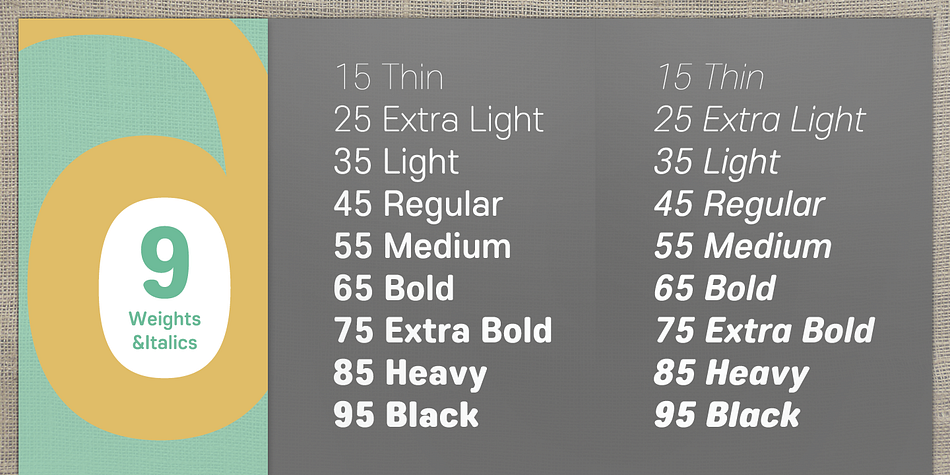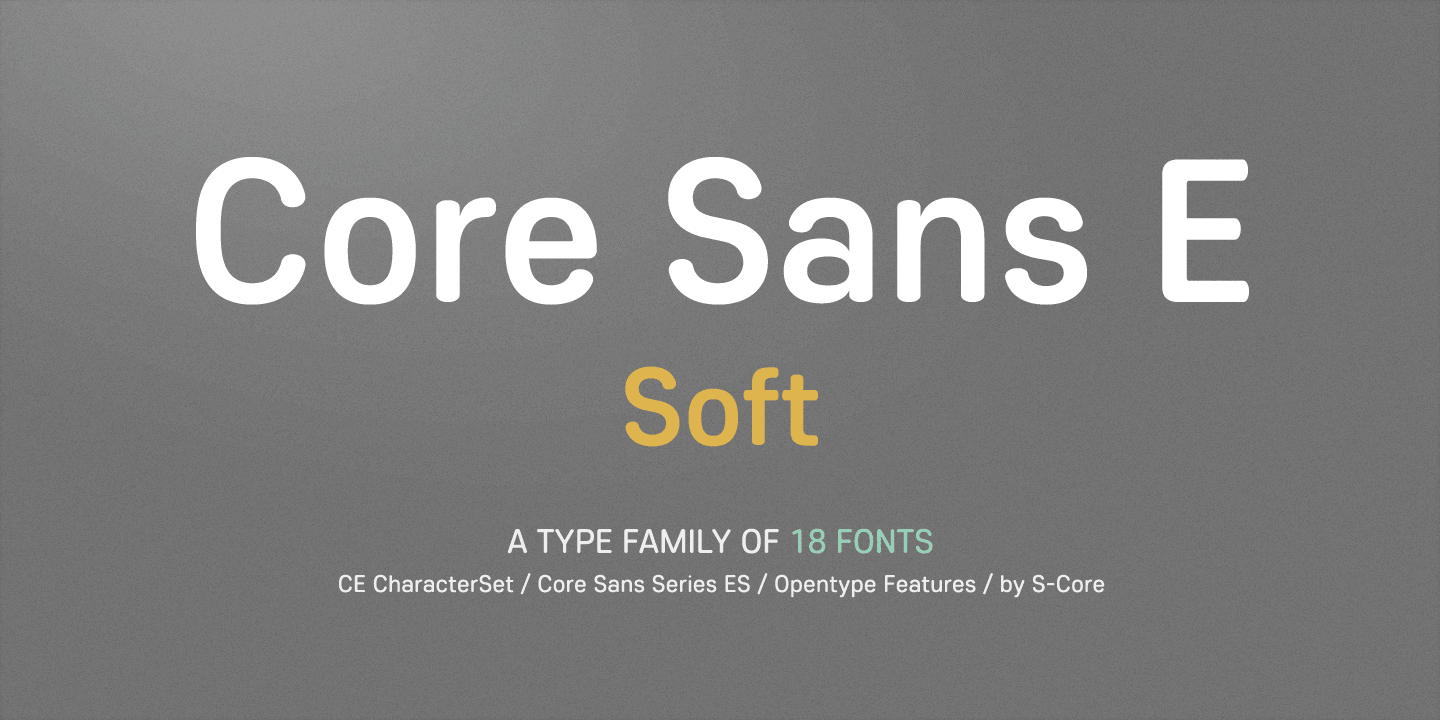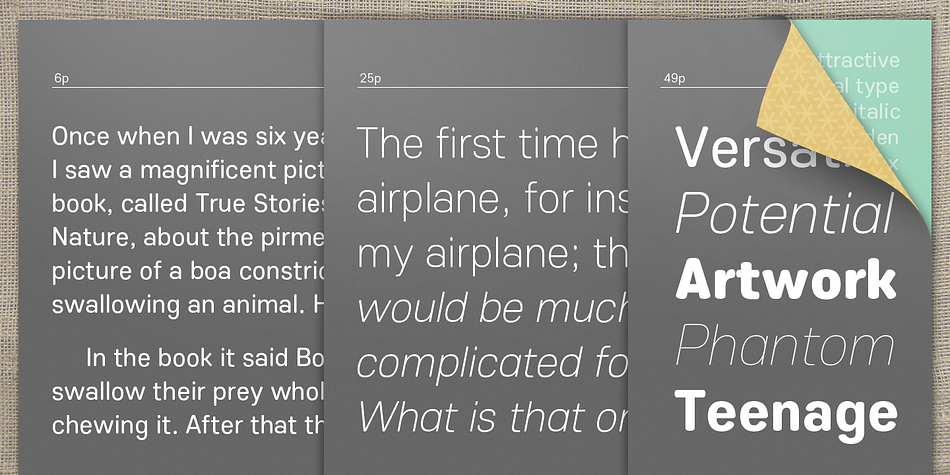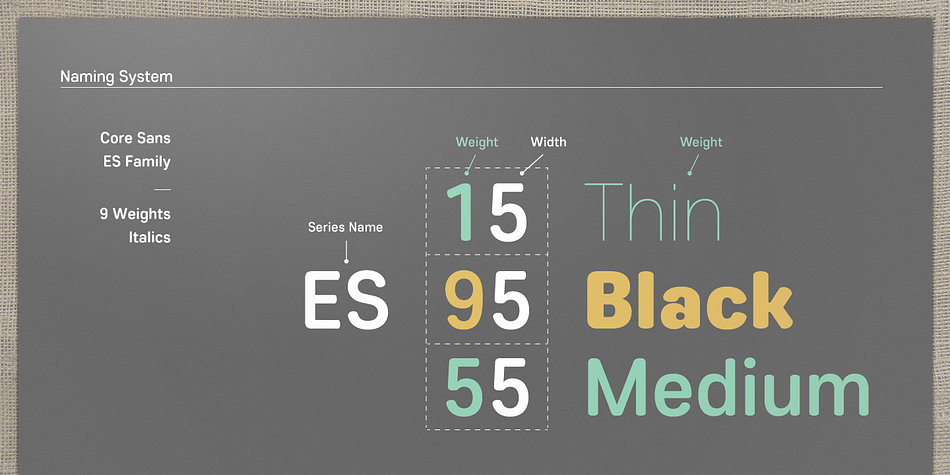
Core Sans ES is a sans serif font family. This typeface has eighteen styles and was published by S-Core.
The Core Sans ES Family is a rounded version of Core Sans E and a part of the Core Sans Series such as Core Sans N, M, A, G, D. This is a modernized grotesque font family with horizontal terminals, low stroke contrast, enclosed apertures and little line width variation.
Its tall x-height makes the text legible and the spaces between individual letter forms are precisely adjusted to create the perfect typesetting. The Core Sans ES Family consists of 9 Weights (Thin, ExtraLight, Light, Regular, Medium, Bold, ExtraBold, Heavy, Black) and Italics for each format.
It supports WGL4, which provides a wide range of character sets (CE, Greek, Cyrillic and Eastern European characters).
Each font includes support for Superiors and Inferiors, Fractions, Tabular numbers, Arrows, Mathematical operators and Opentype Features such as Proportional Figures, Tabular Figures, Numerators, Denominators, Superscript, Scientific Inferiors, Subscript, Fractions, Case Features and Standard Ligatures.
We highly recommend it for use in books, web pages, screen displays, and so on.